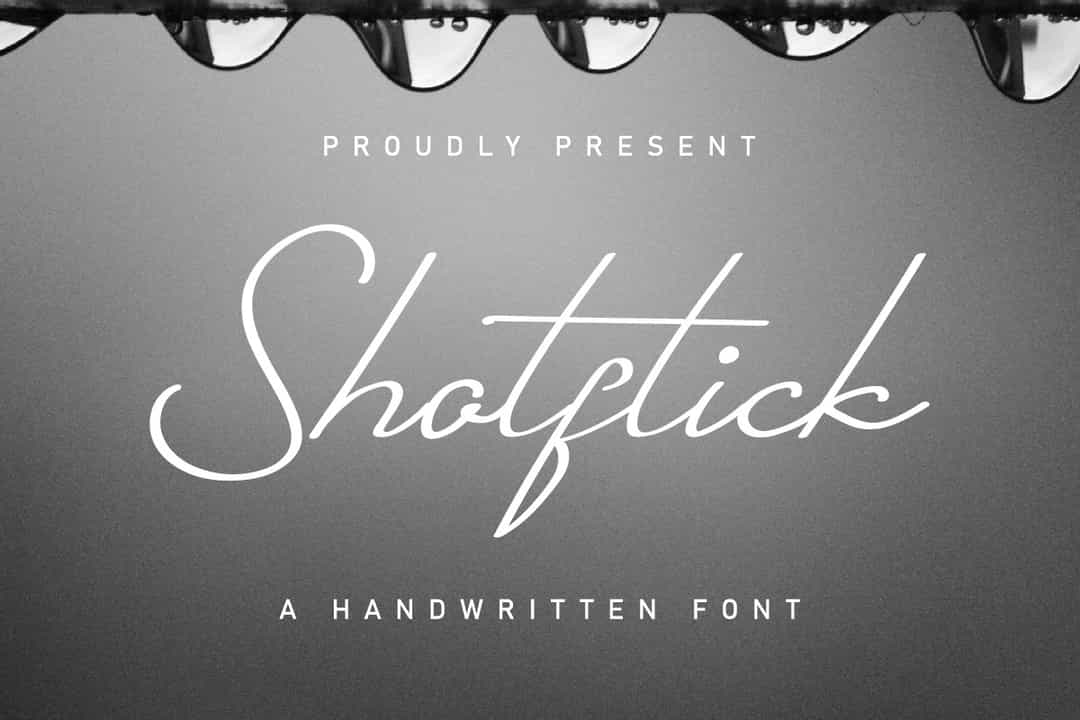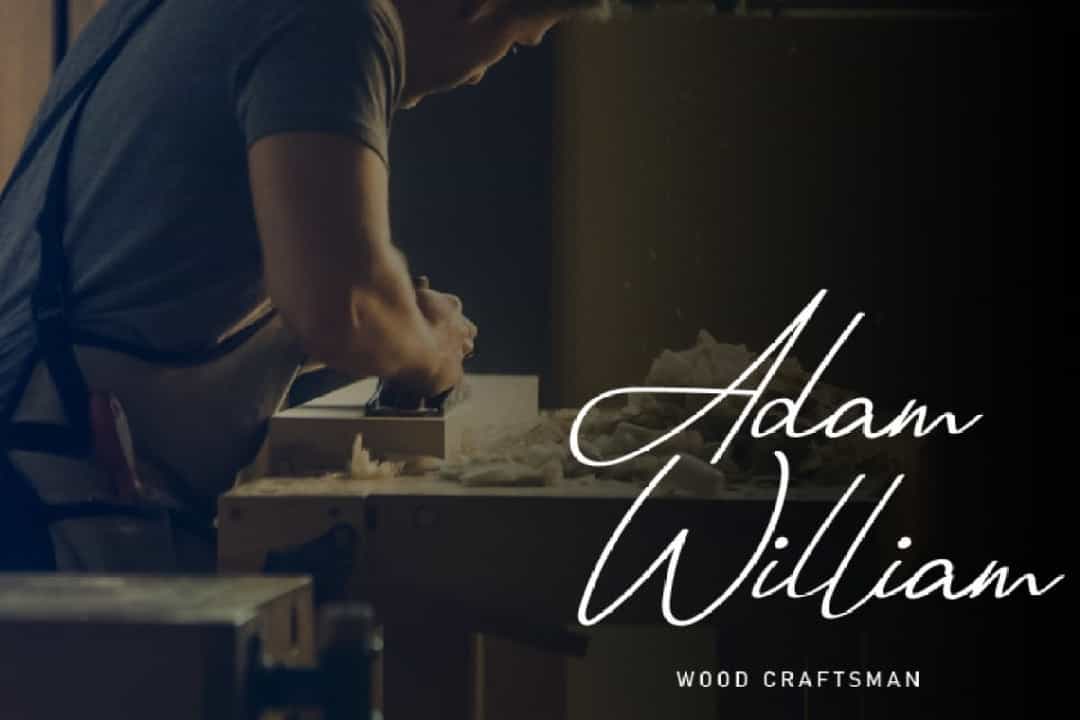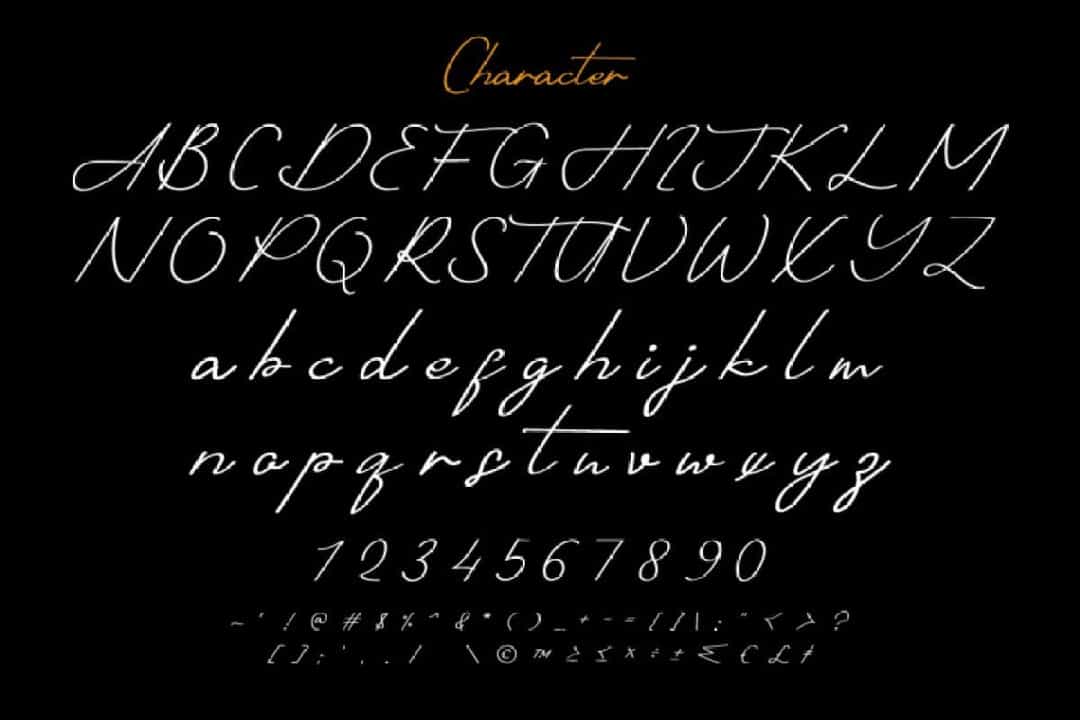
Shotflick is a pretty handwritten font with some stylish serifs ideal for any of your projects. May the elegance and the ever lasting beauty of this design provoke great and beautiful designs! Don’t let Shotflick go unnoticed: this should be incorporated in all your designs today and in the future.